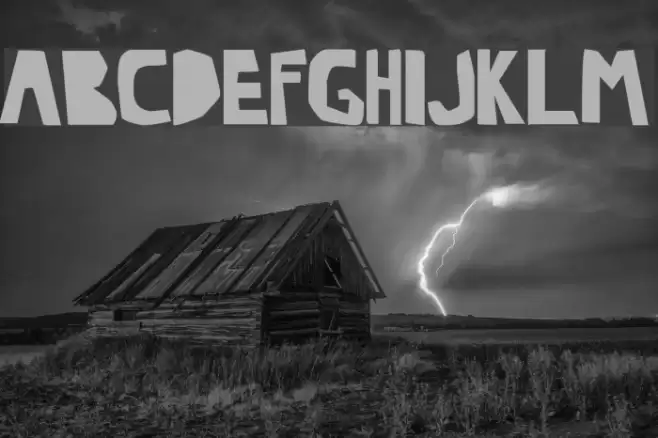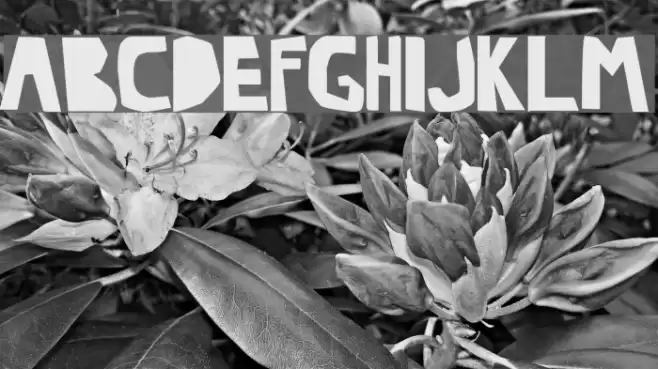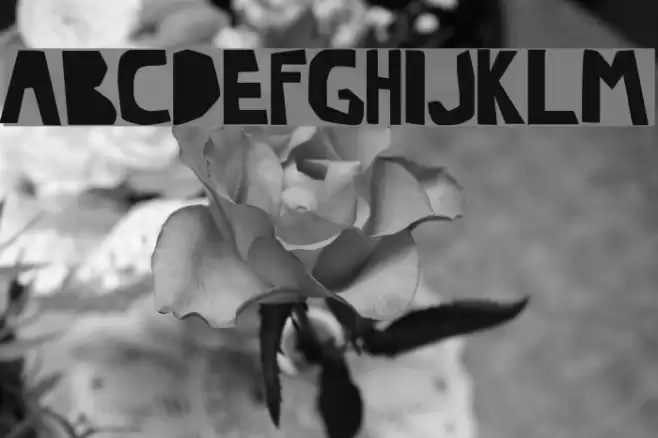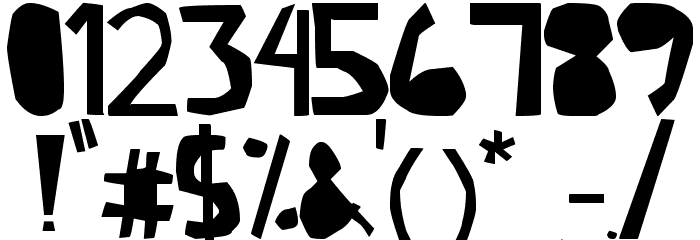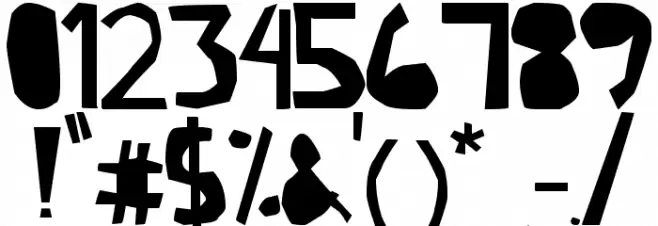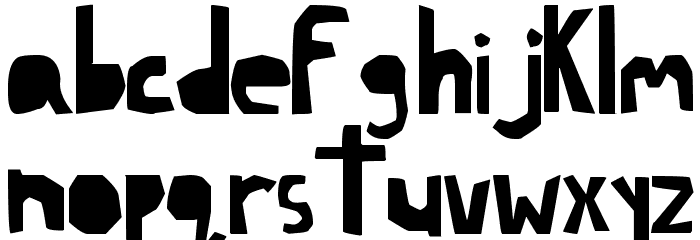
Lazy Font
Lazy Description
This font features a bold and playful design with irregular, chunky letterforms that give it a hand-cut, artistic feel. The uppercase letters are particularly striking, with varying widths and angles that create a dynamic and energetic appearance. The lowercase letters maintain this playful style, with some characters having exaggerated curves and angles. Numbers and special characters follow the same bold and irregular style, making them stand out. This font is perfect for projects that require a fun and eye-catching look, such as posters, children's books, or creative branding.
A bold, playful font with irregular, chunky letterforms and a hand-cut feel from Crazy fonts.
- Proposed Projects: Ideal for posters, children's books, creative branding, and playful designs.
- Overall Style: Playful, Artistic